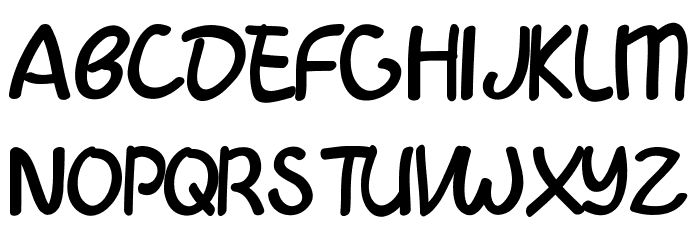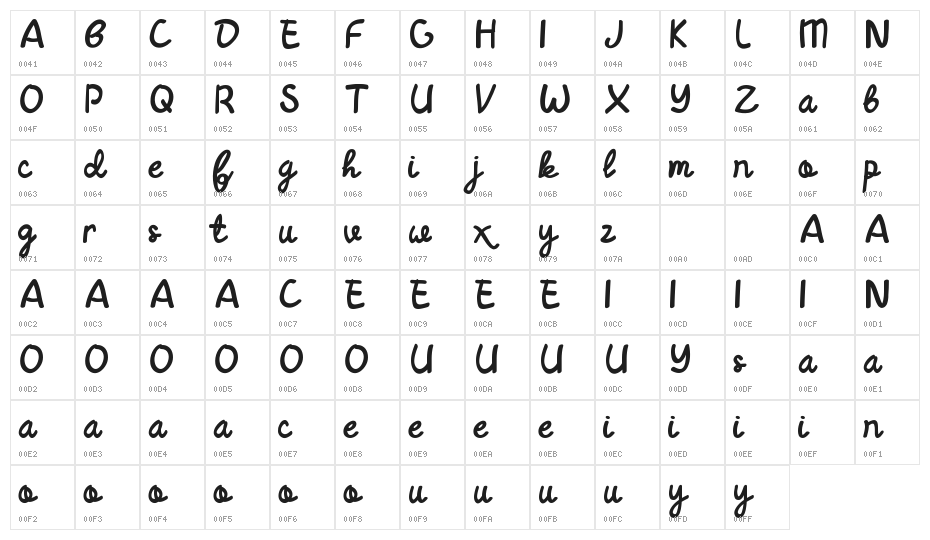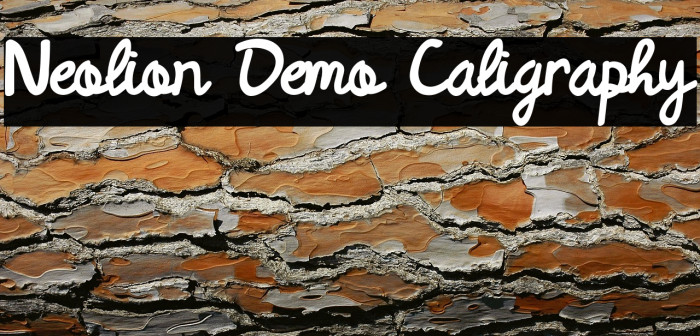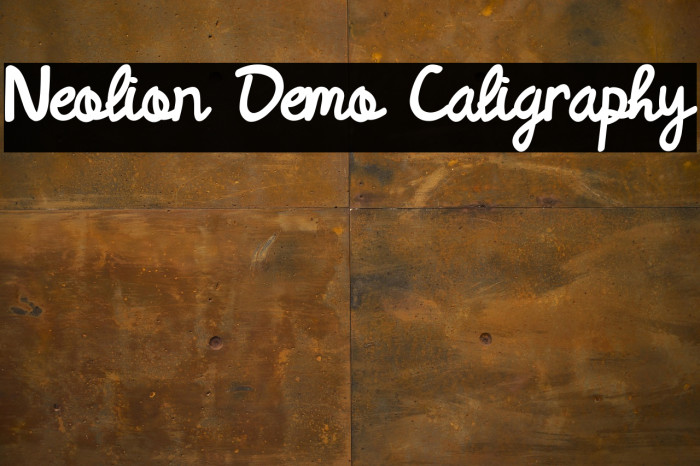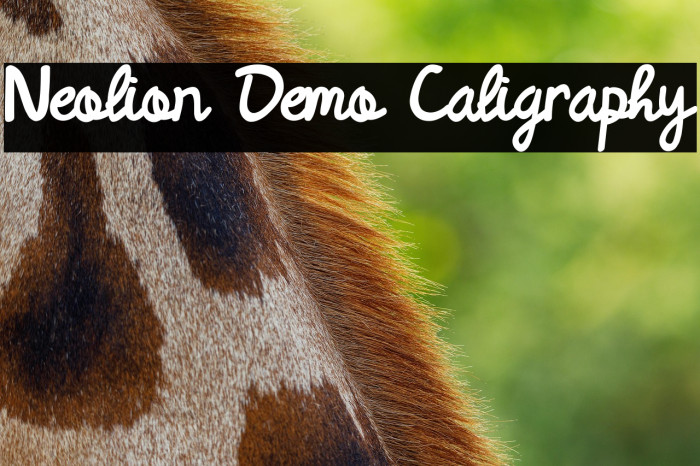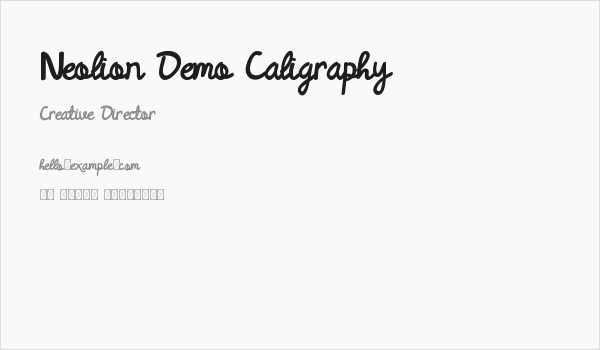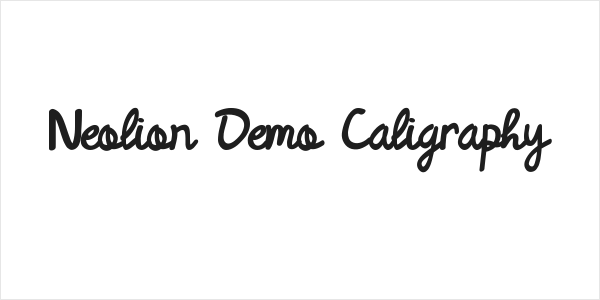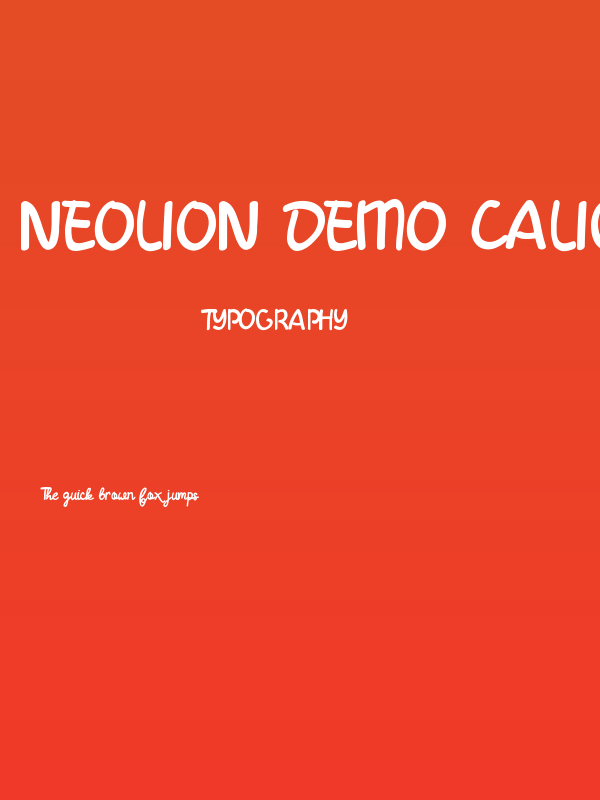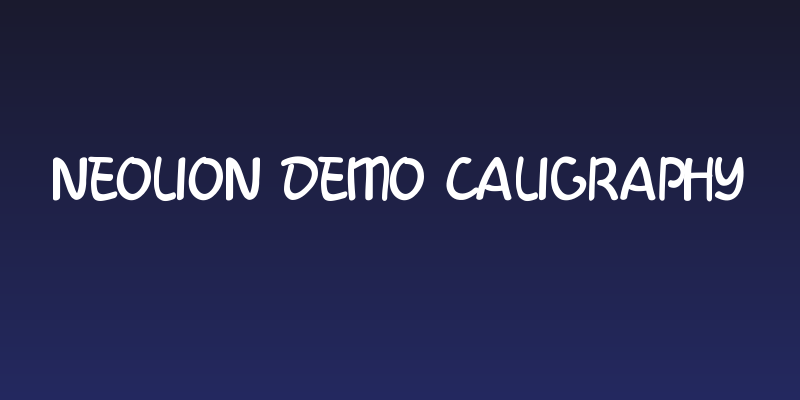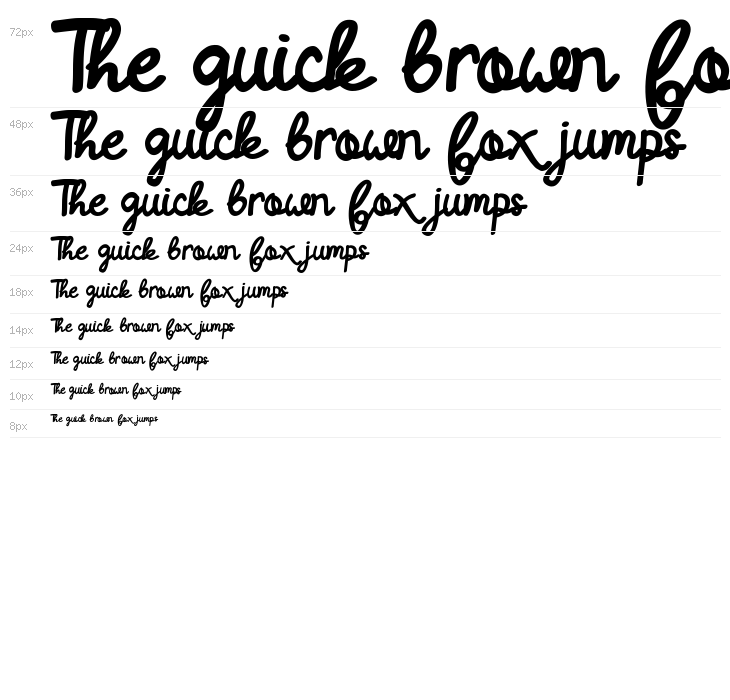
Neolion Demo Caligraphy Font
Neolion Demo Caligraphy Description
This font exhibits a lively and flowing calligraphic style, characterized by its smooth, connected strokes and a playful, handwritten appearance. The uppercase letters maintain a consistent height with rounded edges, while the lowercase letters are more varied in height, adding a dynamic rhythm to the text. The font's curves are soft and inviting, with a slight slant that enhances its casual elegance. The numbers and special characters are designed to match the overall aesthetic, ensuring a cohesive look across all text elements. This font is ideal for projects that require a personal touch, such as invitations, greeting cards, or branding materials that aim to convey warmth and approachability.
| Proposed Projects | Ideal for invitations, greeting cards, personal branding, and any project needing a warm, approachable feel. |